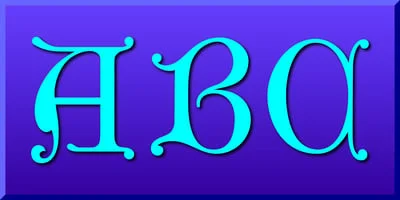
Gothic Initials Three Font
The Gothic Initials Three Font is a specialized and exquisitely decorative typeface, characterized by its ornate, intricate, and often highly stylized initial letters, drawing inspiration from medieval illuminated manuscripts and historical calligraphy. Imagine its captivating forms gracing the opening of a fantasy novel, adding an authentic, ancient feel to genealogical charts, or creating stunning drop caps for historical documents and religious texts. Its rich, detailed aesthetic also makes it an excellent choice for unique certificates, elegant personal crests, sophisticated event invitations with a historical theme, and any design where a touch of classic grandeur and intricate artistry is desired. Whether you're aiming for a dramatic, mystical look or a distinguished, traditional aesthetic, Gothic Initials Three Font delivers with its unmistakable character, ensuring your visuals are both intriguing and truly memorable.
What makes Gothic Initials Three Font so exciting is its profound ability to transport viewers to an era of elaborate craftsmanship and rich storytelling. In a visual landscape often dominated by modern simplicity, this font offers a refreshing dive into the ornate beauty of historical lettering. It’s more than just a typeface; it’s a design element that can instantly set a ceremonial and majestic tone for a project, making content feel more profound and aesthetically rich. Designers will find it an invaluable asset for creating visuals that truly resonate with an audience seeking connection with heritage, artistic detail, and a sense of timeless mystique. It's especially powerful when used sparingly, allowing each initial to shine as a small work of art.
The Gothic Initials Three Font family is typically structured as a specialized collection of decorative initial caps rather than a comprehensive text font. While it might only feature a single "weight" (its inherent decorative style), its "family" is expressed through the variety of unique designs for each letter of the alphabet. You might find:
Uppercase/Capital Letters: Each letter is a unique, highly ornate design, forming the core of the font.
Alternative Designs: Sometimes, different stylistic sets or even separate fonts (e.g., "Gothic Initials One," "Gothic Initials Two") offer variations on the decorative themes, providing a broader range of options for similar historical aesthetics.
Contextual Alternates/Ligatures (less common for initials): While not typically connecting like a script, some might offer slight variations or decorative pairings if designed to be placed near other elements.
These elements combine to provide designers with the flexibility to select the perfect ornate initial to crown their project, ensuring a consistent and historically resonant aesthetic across prominent opening elements.
For projects demanding intricate artistry, historical elegance, and a touch of dramatic flair, consider the distinguished Gothic Initials Three Font. It's an excellent choice to imbue your designs with beauty and a sense of timeless grandeur.